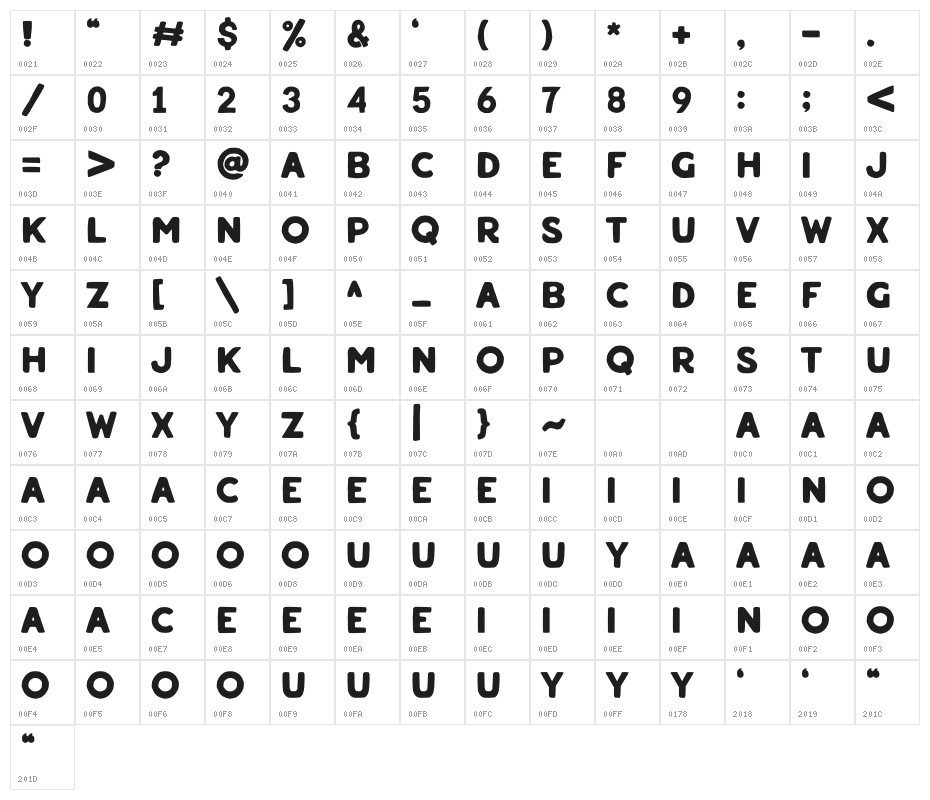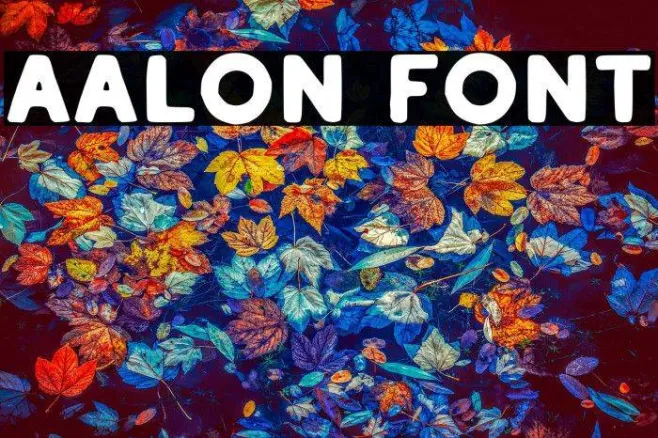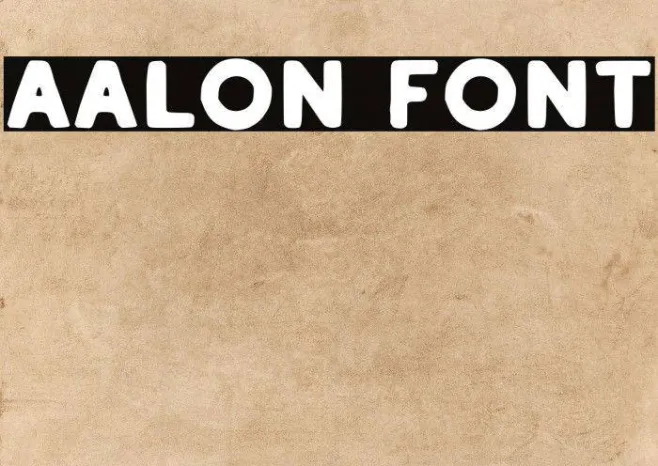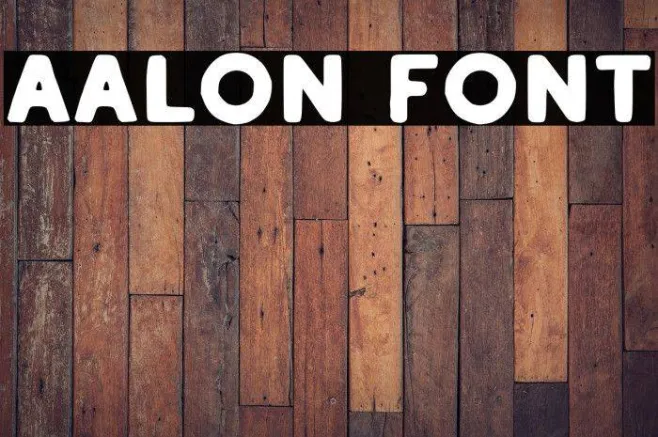
Aalon Font
Aalon Description
This font features bold, rounded characters that convey a playful and approachable aesthetic. The letters are uniformly thick, with a consistent stroke width that gives the typeface a solid and sturdy appearance. The rounded edges soften the overall look, making it suitable for friendly and informal designs. The numerals and special characters maintain the same rounded style, ensuring cohesion across all text elements. The font's simplicity and clarity make it highly legible, even at smaller sizes.
| Proposed Projects | Ideal for children's books, playful branding, casual invitations, and friendly product packaging. |